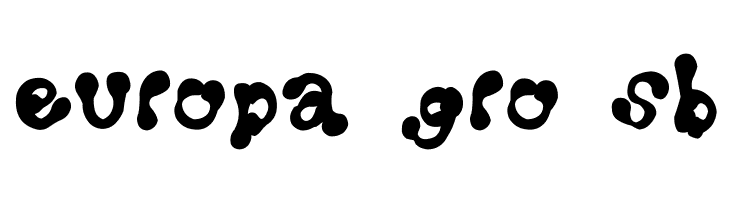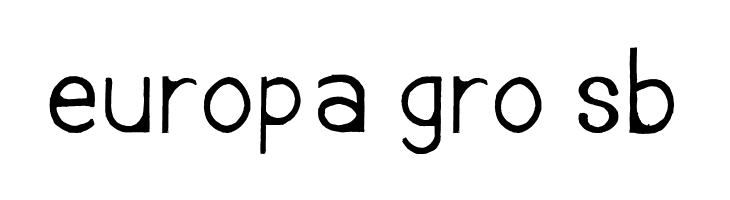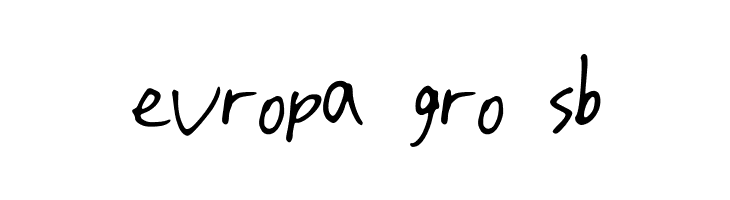
• Zooeys Diary
A playful, handwritten font with an organic and casual style.
• KBRiceaRoni
A playful, organic font with vine-like, hand-drawn characters.
• dirtyDeoHandInk
A hand-drawn, ink-like font with a raw and organic feel.
• rambut kusut
A decorative font with intricate, swirling lines and a bold, organic style.
• Leafy font
• Aracne Condensed Regular
A condensed, hand-drawn font with a casual and organic style.
• Skyscraper
A tall, narrow, hand-drawn font with an organic, rough texture.
• WildThingsZoo
A playful, handwritten font with quirky, organic shapes and dynamic strokes.
• CRU-Jariya-Hand-Written-Regular
• Lavalamp
A playful, casual handwritten font with uneven strokes and organic flow.